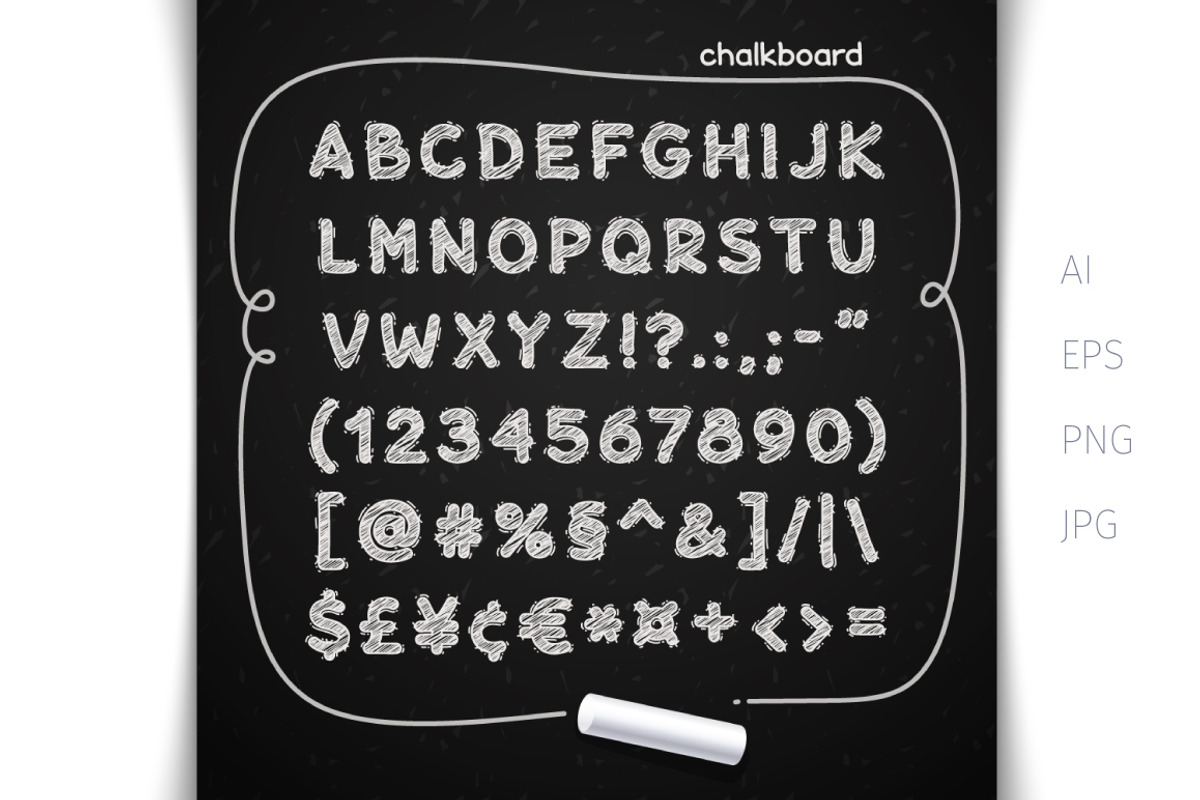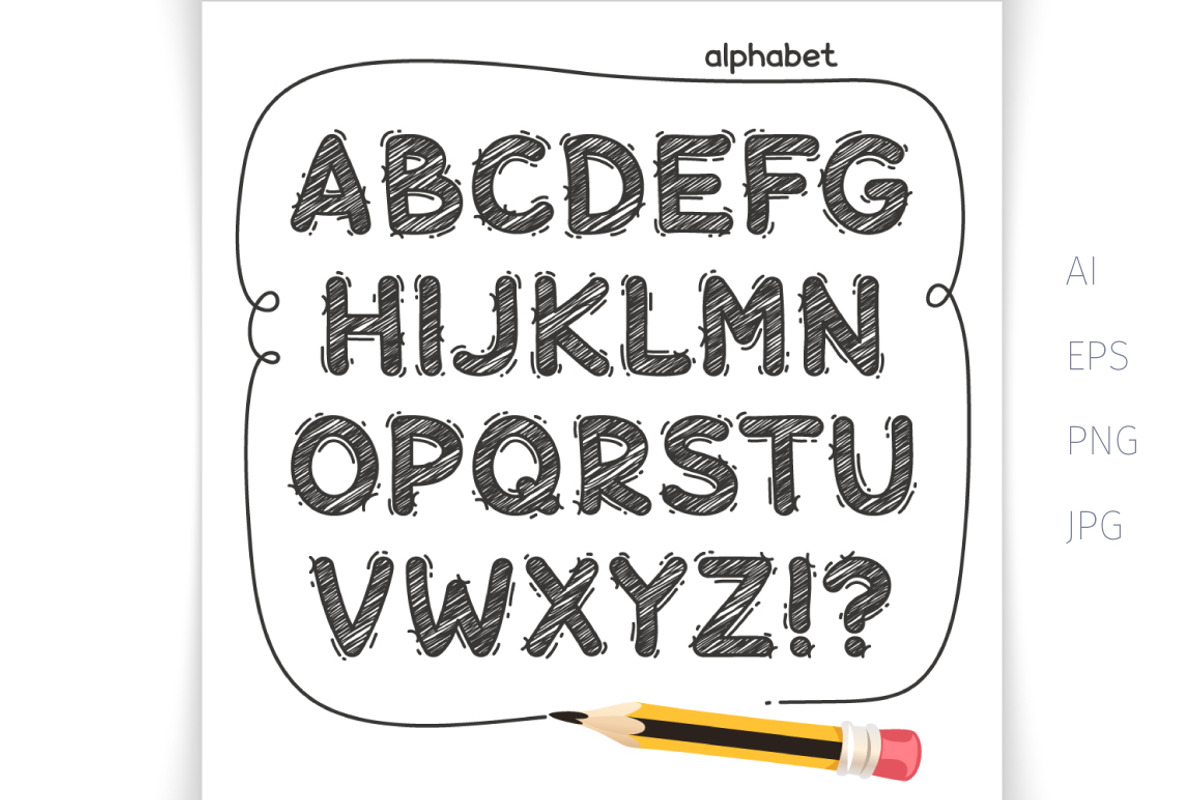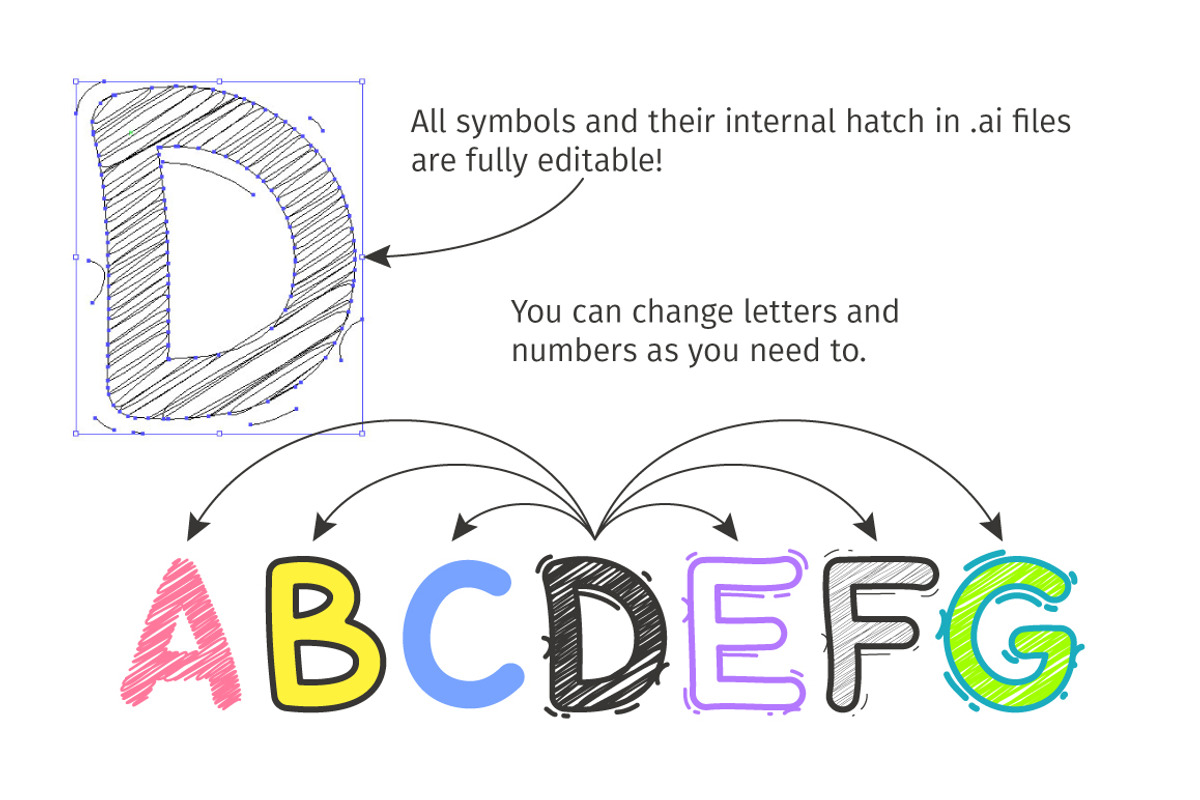
Cartoon Doodle Font
Cartoon Doodle Font by Voysla's Shop is a font selected for branding, posters, packaging, typography.
Why Cartoon Doodle Font is worth a look
Cartoon Doodle Font by Voysla's Shop fits naturally into Branding, posters, packaging, typography.